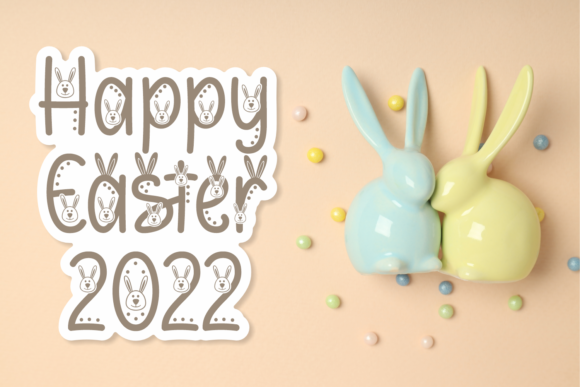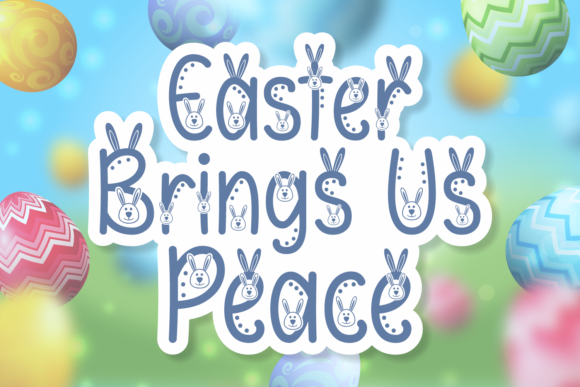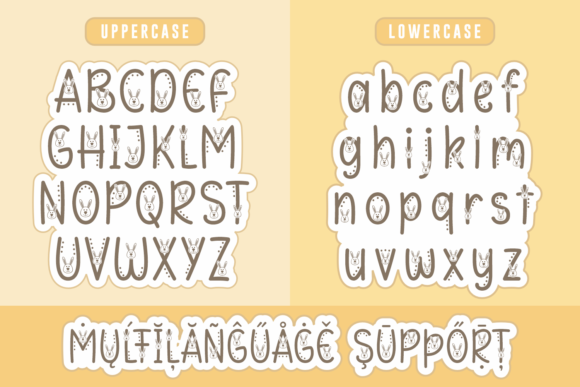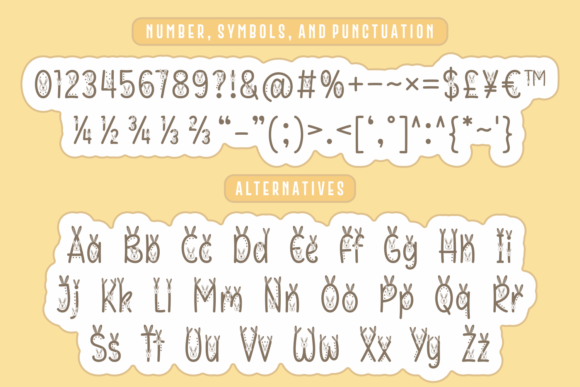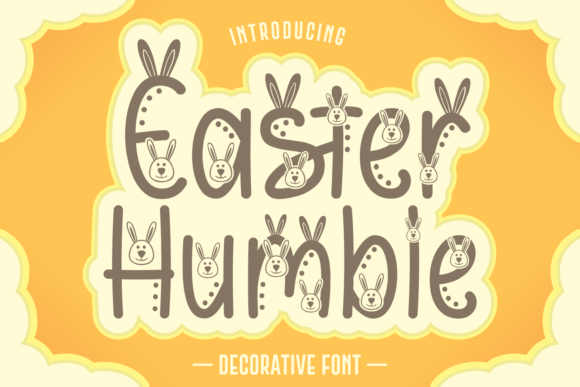
Easter Humble Font: The Ultimate Creative Companion for Easter Designs
Are you looking for a unique and creative font to elevate your Easter designs? Look no further than the Easter Humble Font! This adorable decorative font is inspired directly by the Easter bunny, featuring cute little bunny heads popping out from every character. In this article, we’ll dive into the world of Easter Humble, exploring its features, uses, and benefits for designers and crafters.
What is Easter Humble Font?
Easter Humble Font is a creative and playful typeface that embodies the spirit of Easter. Designed with the Easter bunny in mind, this font features endearing bunny heads on every uppercase, lowercase, and special character. The result is a whimsical and eye-catching font that’s perfect for creating festive Easter designs.
Key Features of Easter Humble Font
- Adorable Bunny Heads: Each character in the Easter Humble Font features a cute bunny head, adding a touch of playfulness to your designs.
- Multi-Character Support: Uppercase, lowercase, and special characters all come with bunny head designs, ensuring consistency throughout your projects.
- Decorative and Whimsical: Easter Humble Font is perfect for creating eye-catching Easter designs, from cards and invitations to posters and kids’ clothing.
Uses for Easter Humble Font
The Easter Humble Font is incredibly versatile, making it suitable for a wide range of design projects. Here are some ideas to get you started:
- Easter Cards: Create personalized Easter cards with the Easter Humble Font, adding a touch of whimsy to your greetings.
- Stickers and Wall Art: Design adorable stickers and wall art featuring the Easter Humble Font, perfect for kids’ rooms or Easter-themed decorations.
- Invitations and Posters: Use the Easter Humble Font to create festive invitations and posters for Easter events, parties, or egg hunts.
- Kids’ Clothing Designs: Add a playful touch to your kids’ clothing designs with the Easter Humble Font, creating fun and unique Easter-themed apparel.
- Frames and Gift Tags: Create beautiful frames and gift tags with the Easter Humble Font, perfect for Easter gifts or decorations.
The Easter Humble Font offers numerous benefits for designers and crafters, including:
- Time-Saving: With the Easter Humble Font, you can quickly create professional-looking Easter designs without spending hours on custom illustrations.
- Consistency: The font’s consistent design ensures that your Easter projects have a cohesive look, making them more visually appealing.
- Customization: The Easter Humble Font is easy to customize, allowing you to adjust the text and design to fit your specific needs.
- Fun and Playful: The Easter Humble Font adds a touch of playfulness to your designs, making them more engaging and enjoyable for your audience.
Tips for Using Easter Humble Font
To get the most out of the Easter Humble Font, here are some tips to keep in mind:
- Experiment with Colors: Try pairing the Easter Humble Font with different colors and textures to create unique and eye-catching designs.
- Mix and Match: Combine the Easter Humble Font with other fonts or graphics to create interesting and dynamic designs.
- Keep it Simple: Don’t be afraid to keep your design simple and focus on the Easter Humble Font, letting its playful charm shine through.
In conclusion, the Easter Humble Font is a fantastic creative companion for Easter designs. With its adorable bunny heads, multi-character support, and decorative style, this font is perfect for designers and crafters looking to add a touch of whimsy to their projects. Whether you’re creating Easter cards, stickers, wall art, or kids’ clothing designs, the Easter Humble Font is sure to delight. So why wait? Grab the Easter Humble Font today and start creating your own Easter masterpieces!